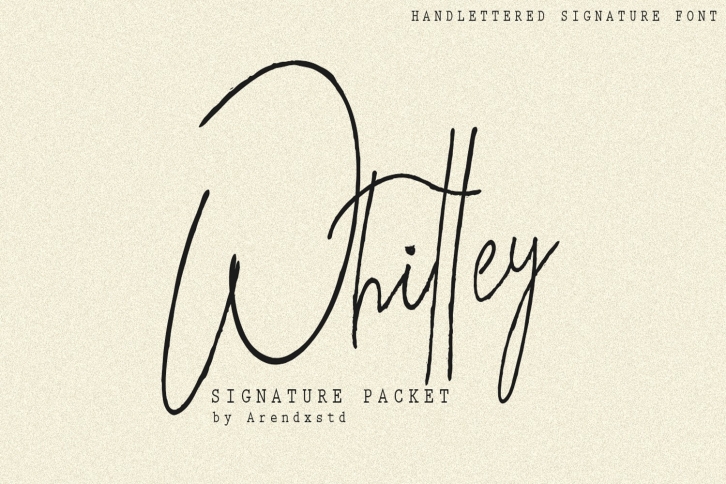
Whitley Signature Packet is a beautiful font that was designed by Arendxstudio. It's a great choice for designers and creatives who need such a font. It was released on August 5, 2019 and the file size is 13.40 MB. Whitley Signature Packet may give a more youthful, expressive and casual look to your project. It is a very beautiful, refined, elegant, and high-quality font.